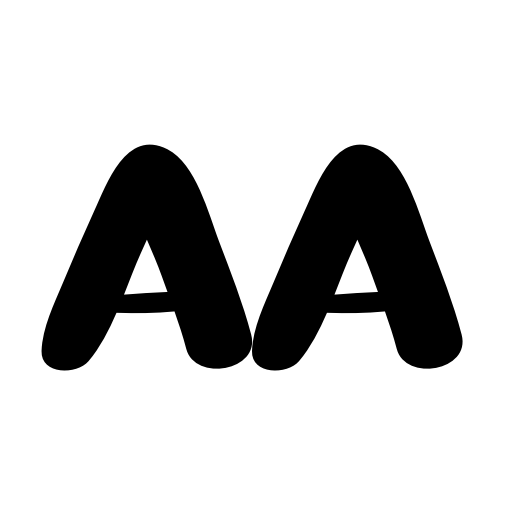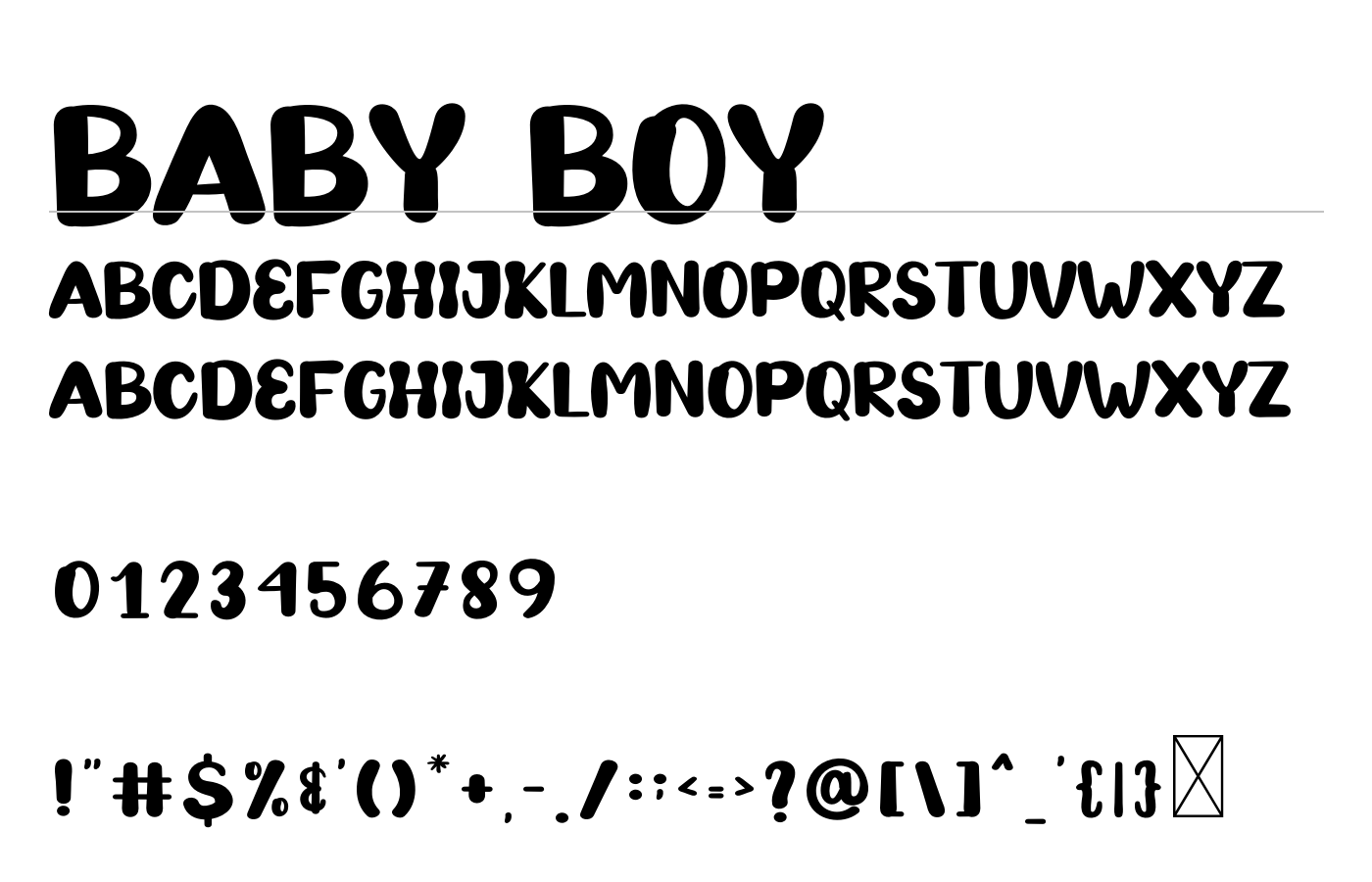
Baby Boy Font is a playful and chunky sans-serif typeface with a hand-drawn, casual feel. Its bold, rounded letterforms and slightly irregular shapes evoke a warm and friendly vibe, making it perfect for children's products, playful branding, and informal headlines. This font captures a fun, approachable spirit that works well in creative and lighthearted design contexts.
Baby Boy Font